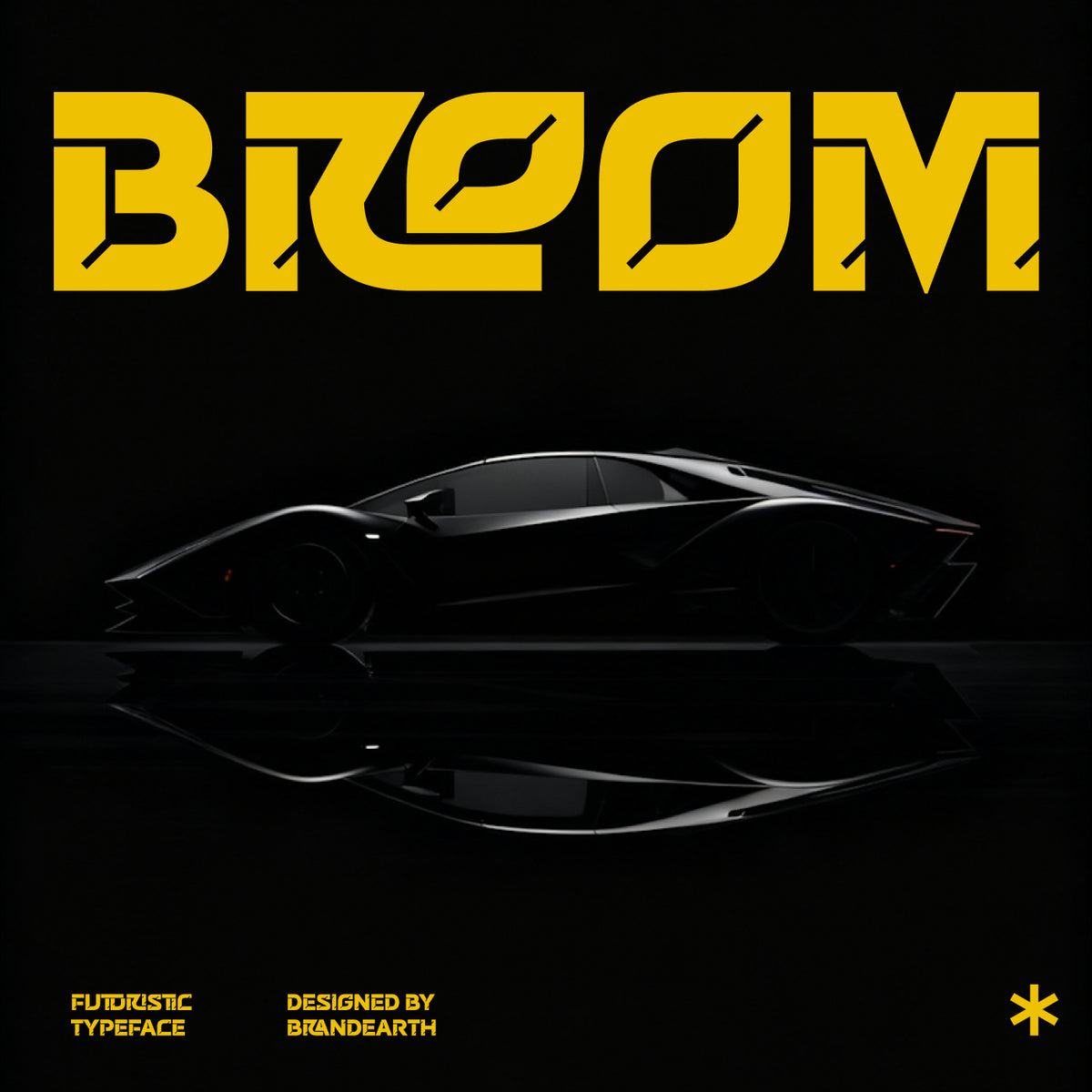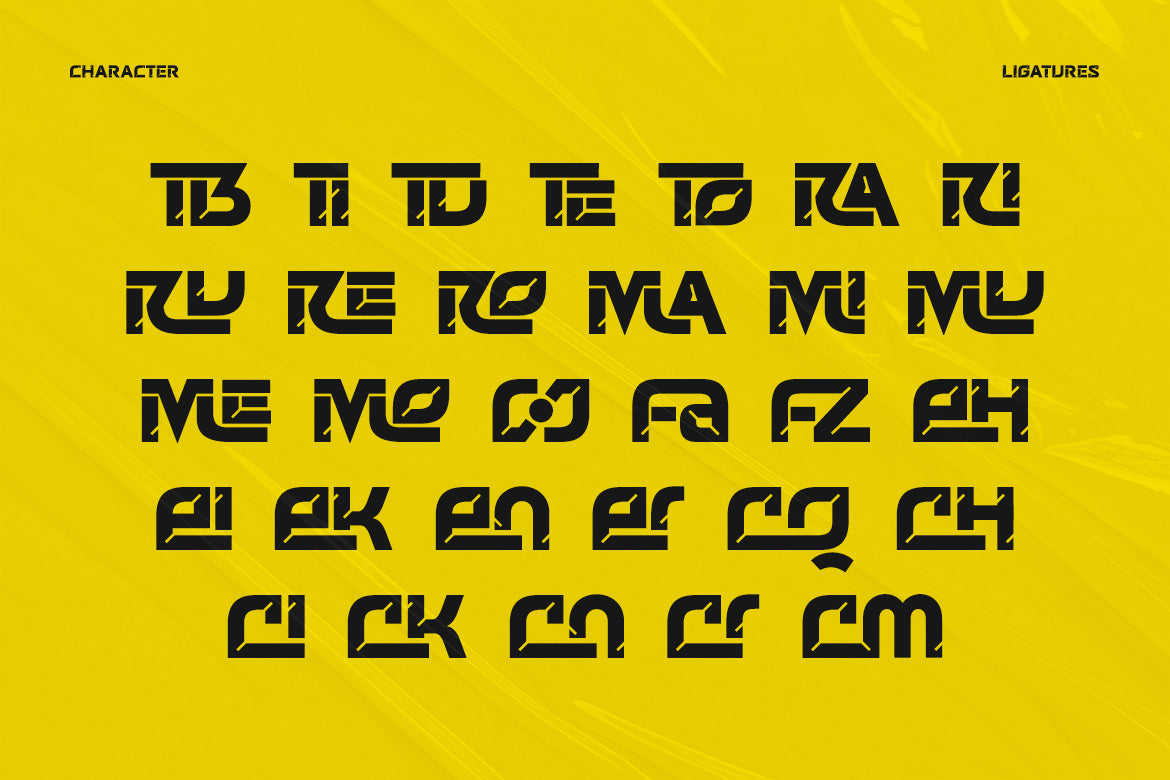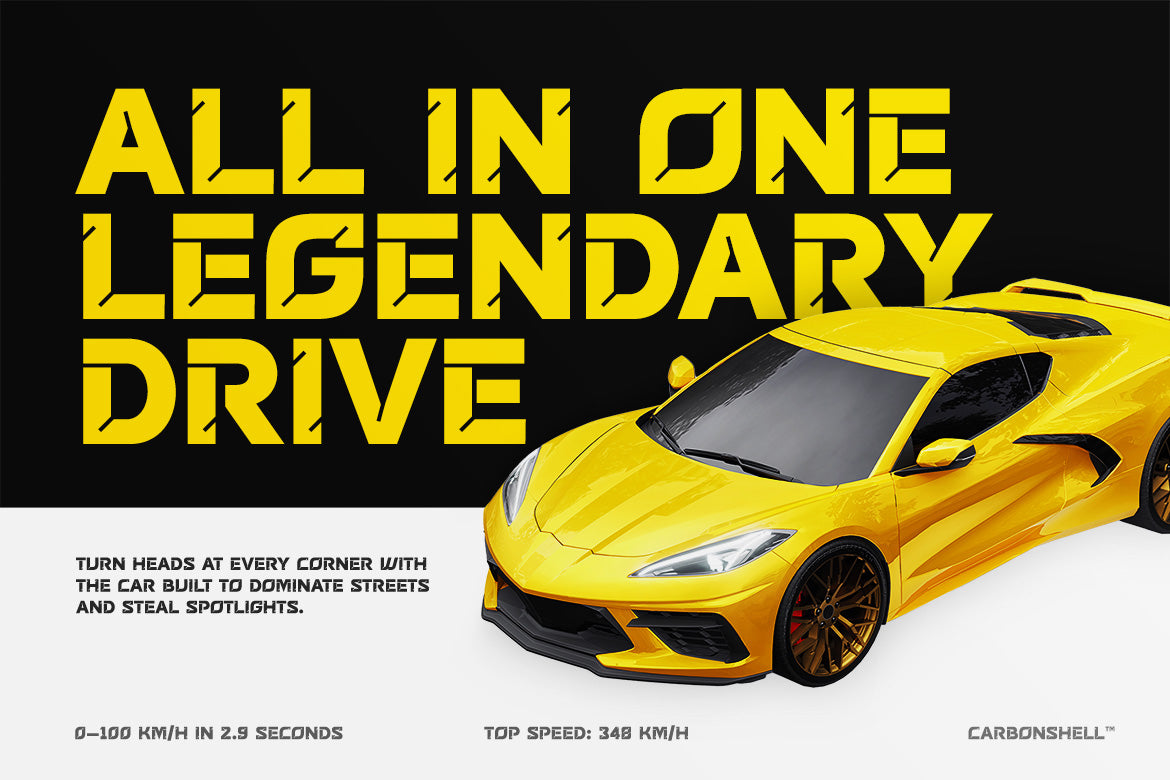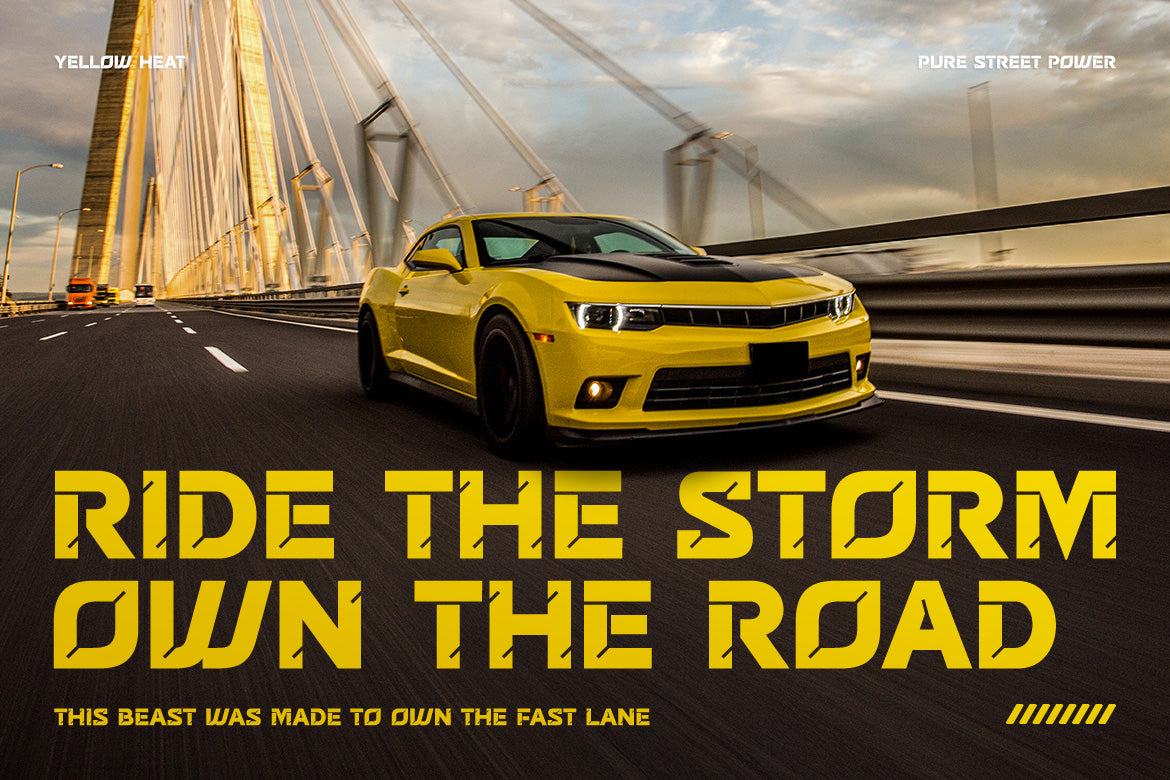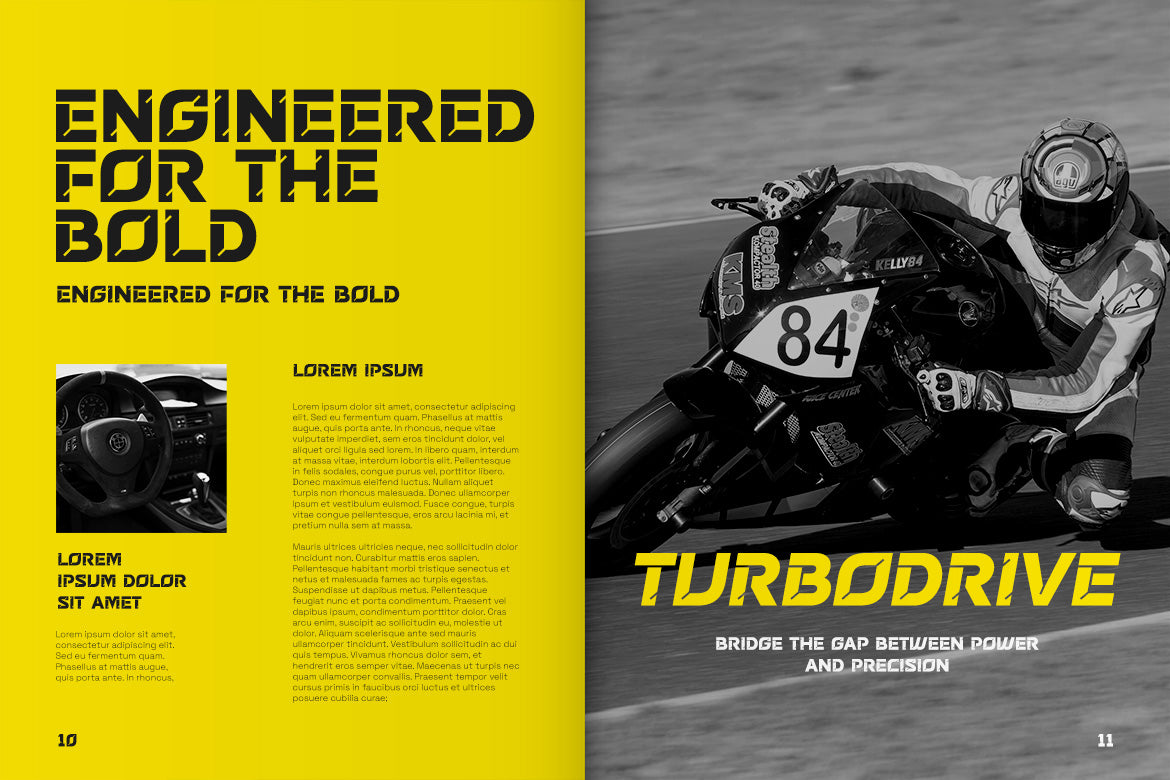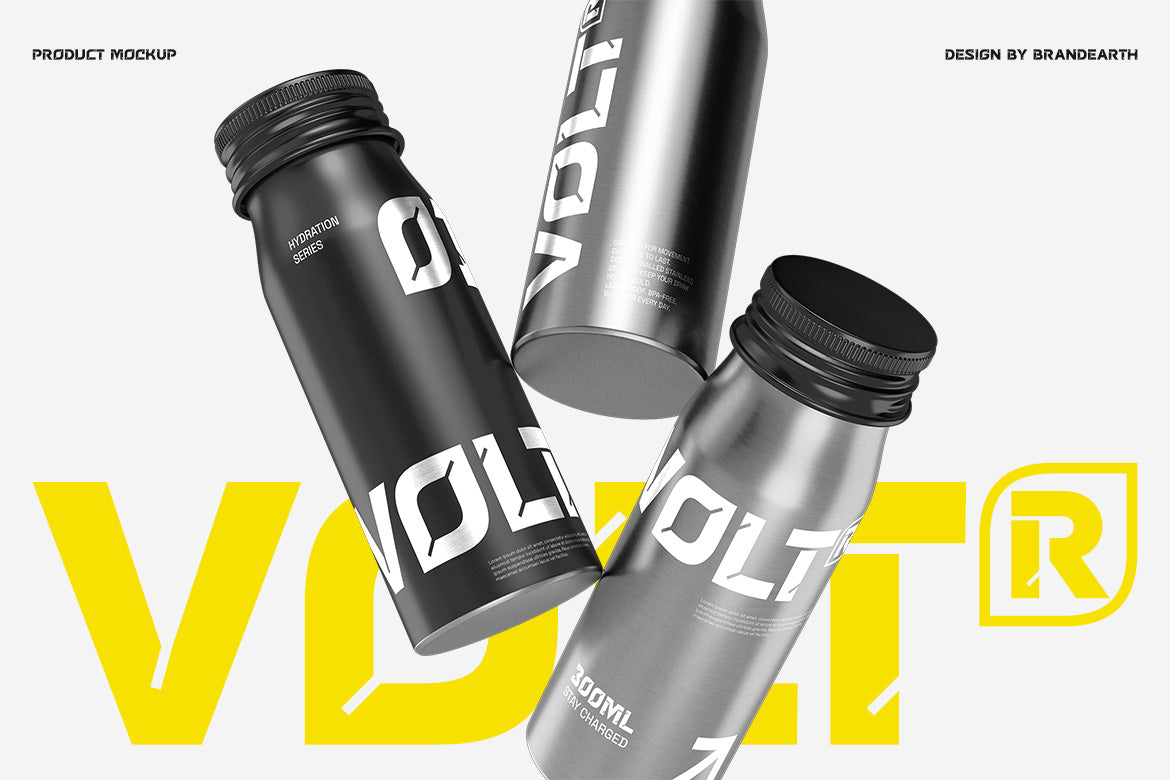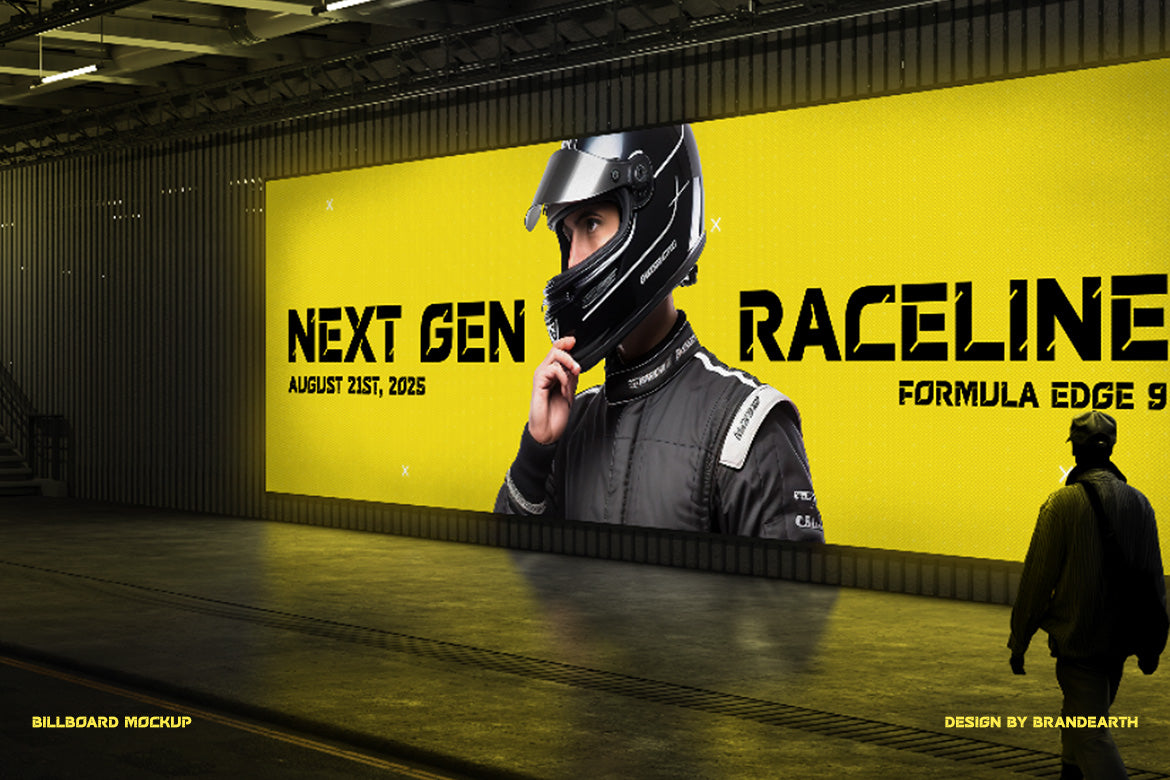
Broom Futuristic Typeface Font
Broom is a bold futuristic display typeface built around sharp geometric construction, wide proportions, and distinctive cut-in details that create a strong automotive and high-tech character. Its uppercase letterforms feature angular terminals, streamlined curves, extended horizontal structures, and carefully placed diagonal cuts, giving the typography a mechanical yet aerodynamic appearance. The dramatic shapes work especially well when large typography is needed to establish a powerful visual identity.
Relevance and Use Case is perfect for visual projects that need a futuristic automotive, racing, or technology-driven personality. Its angular construction and aerodynamic letterforms make it suitable for car branding, motorsport identities, racing posters, vehicle graphics, automotive campaigns, gaming visuals, technology promotions, event titles, apparel graphics, product branding, album artwork, and bold social media compositions. The typeface is particularly effective for short headlines and large-scale typography where its distinctive letter structure can remain clearly visible.
Broom is a bold geometric display typeface featuring angular terminals, wide proportions, and diagonal cut-in details, with uppercase and lowercase letters, numerals, and punctuation. It is available in TTF, OTF, and WOFF formats.